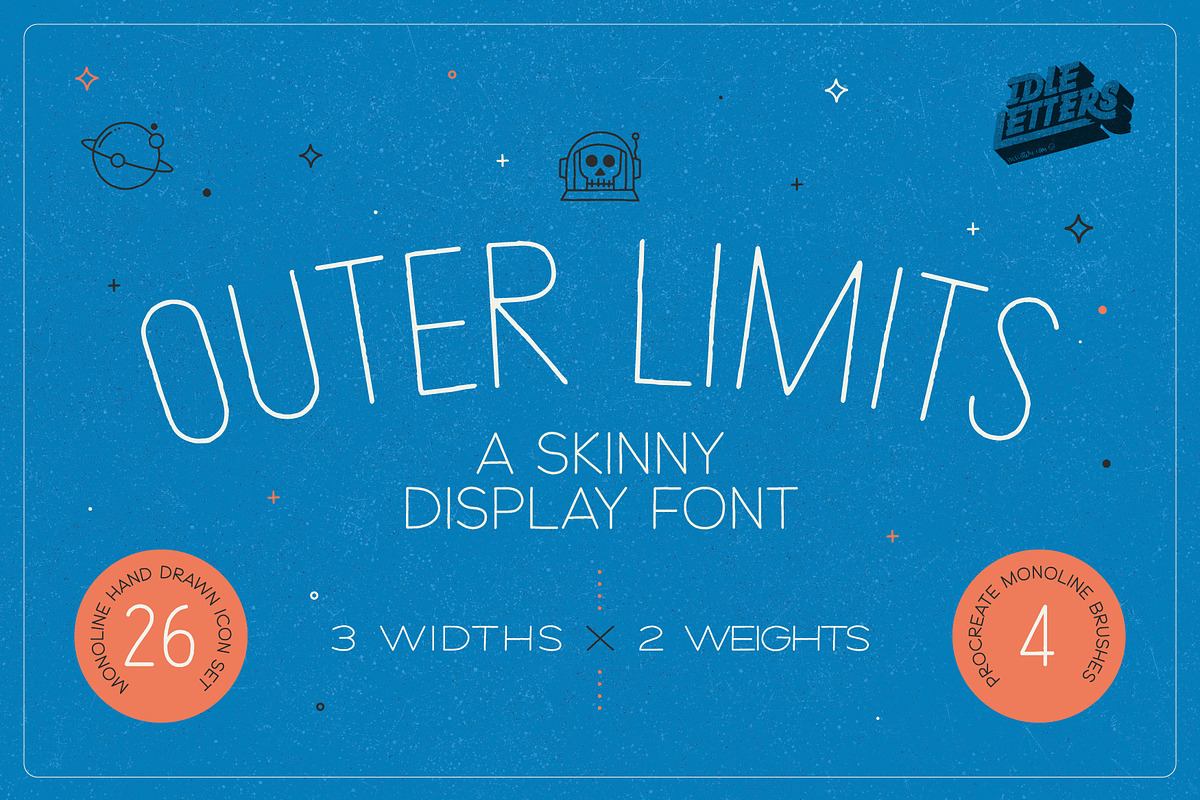
Outer Limits - Skinny Display Font Free Download
Outer Limits – Skinny Display Font Free Download is a sleek and futuristic typeface designed to capture attention with its tall, narrow letterforms and modern aesthetic. Perfect for tech branding, event posters, album covers, website headers, and any design that needs a bold, cutting-edge look.
With its clean lines and high-contrast design, Outer Limits is ideal for projects that require both elegance and impact. Whether you’re working on a sci-fi movie title, a minimalist logo, or high-tech product packaging, this font adds personality and a sense of forward-thinking design.